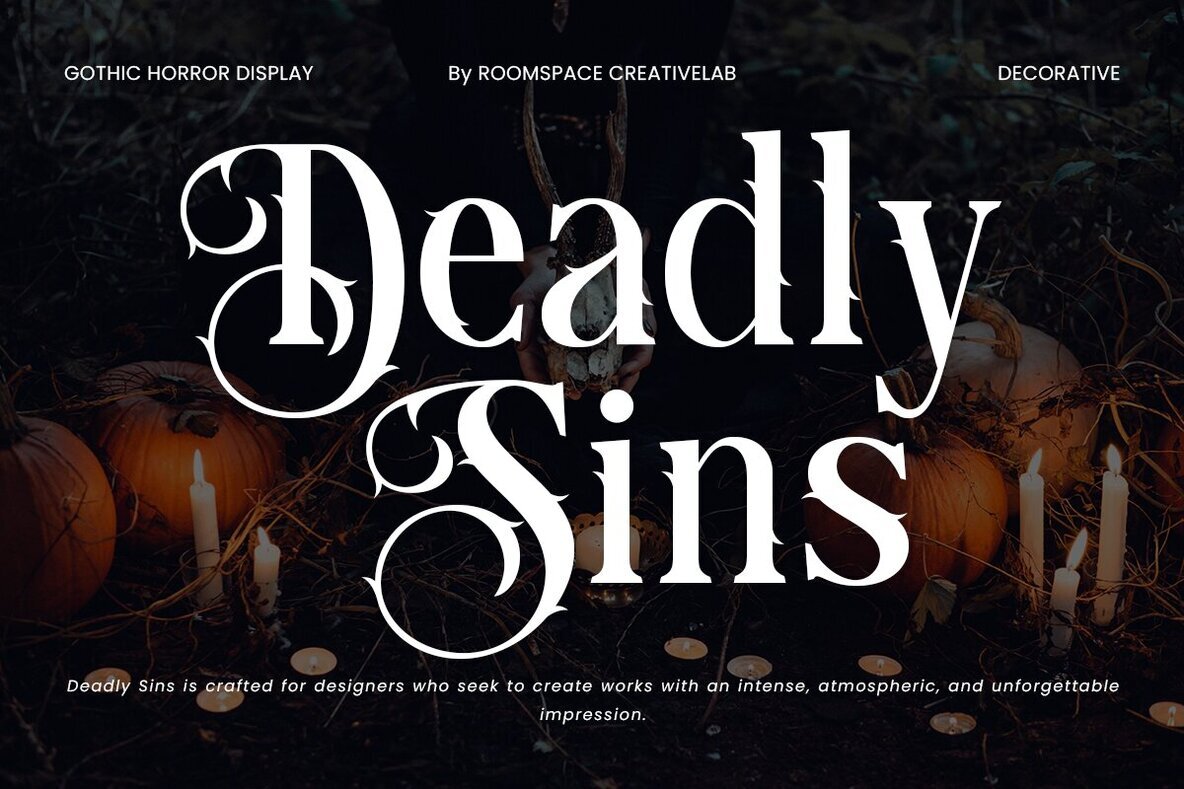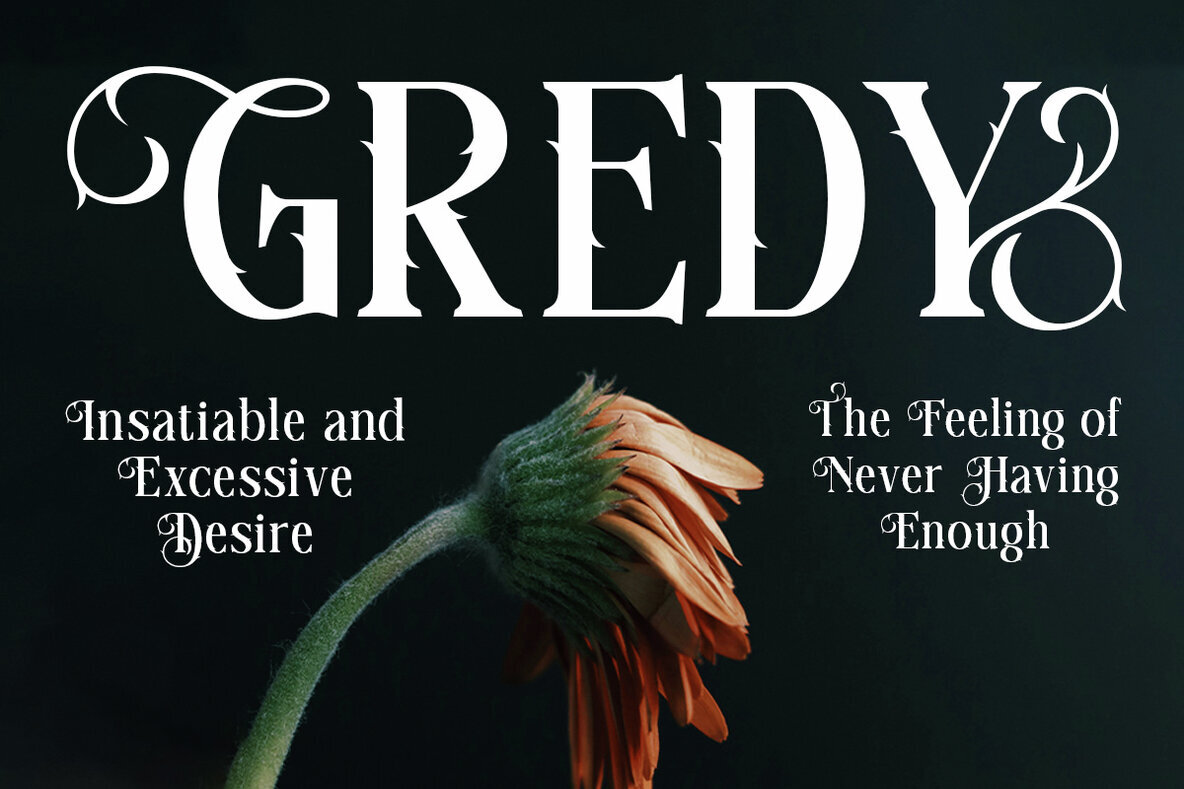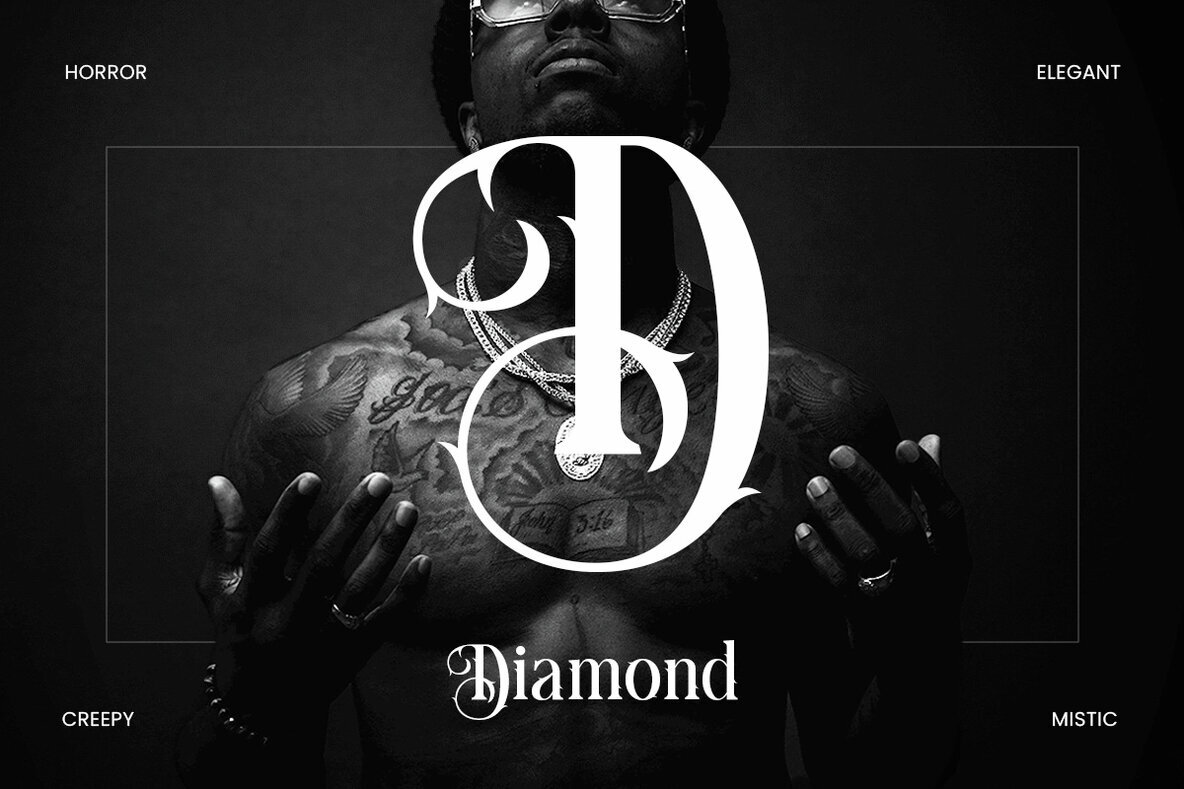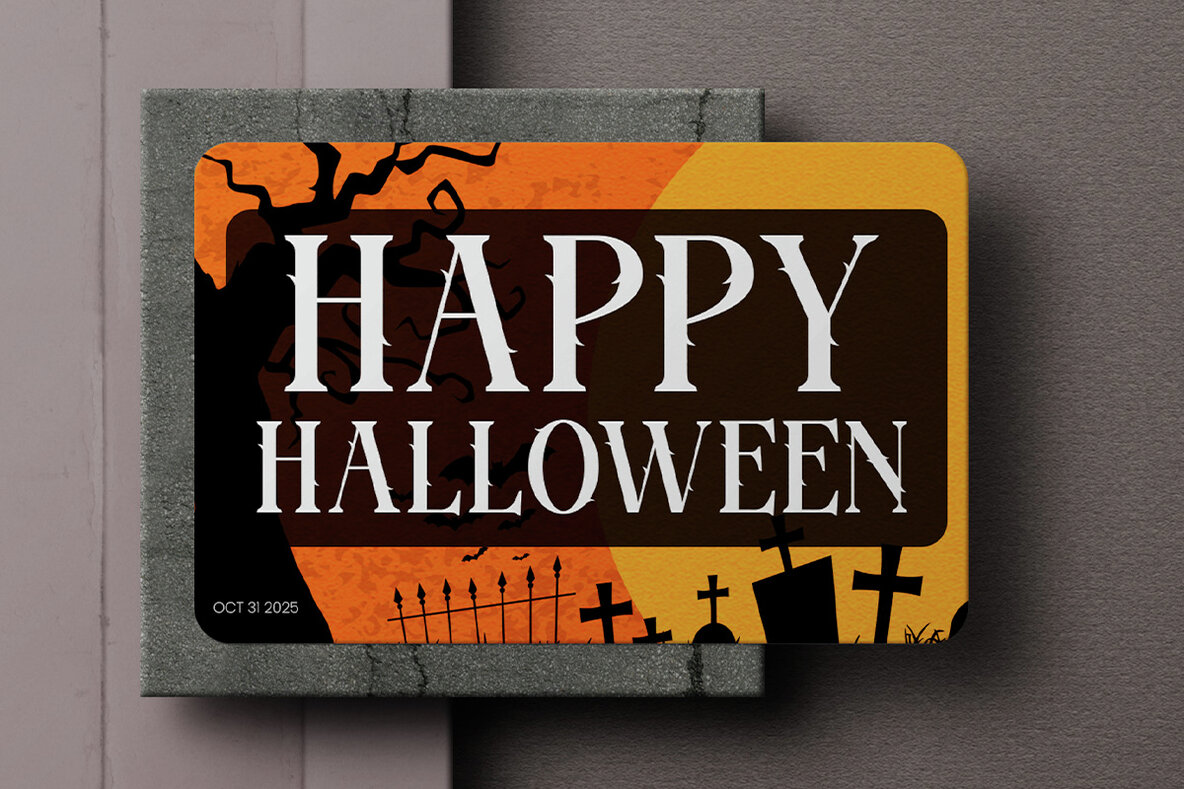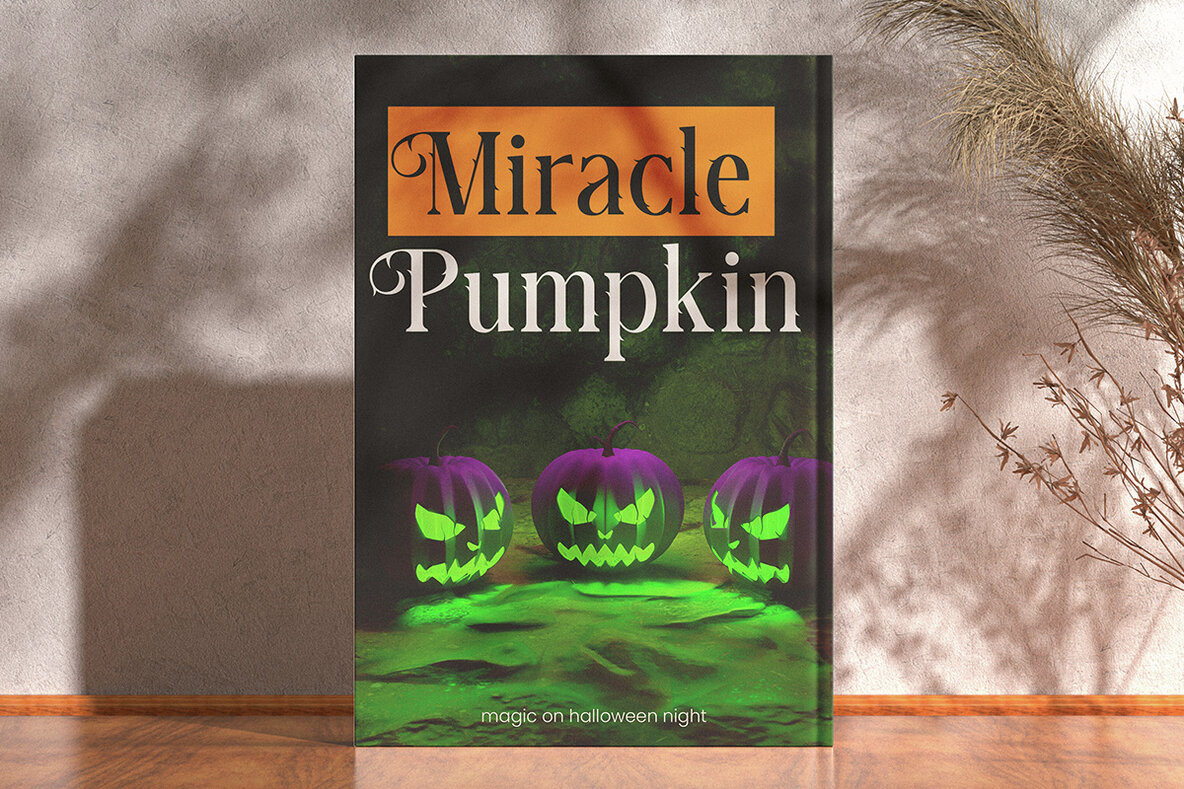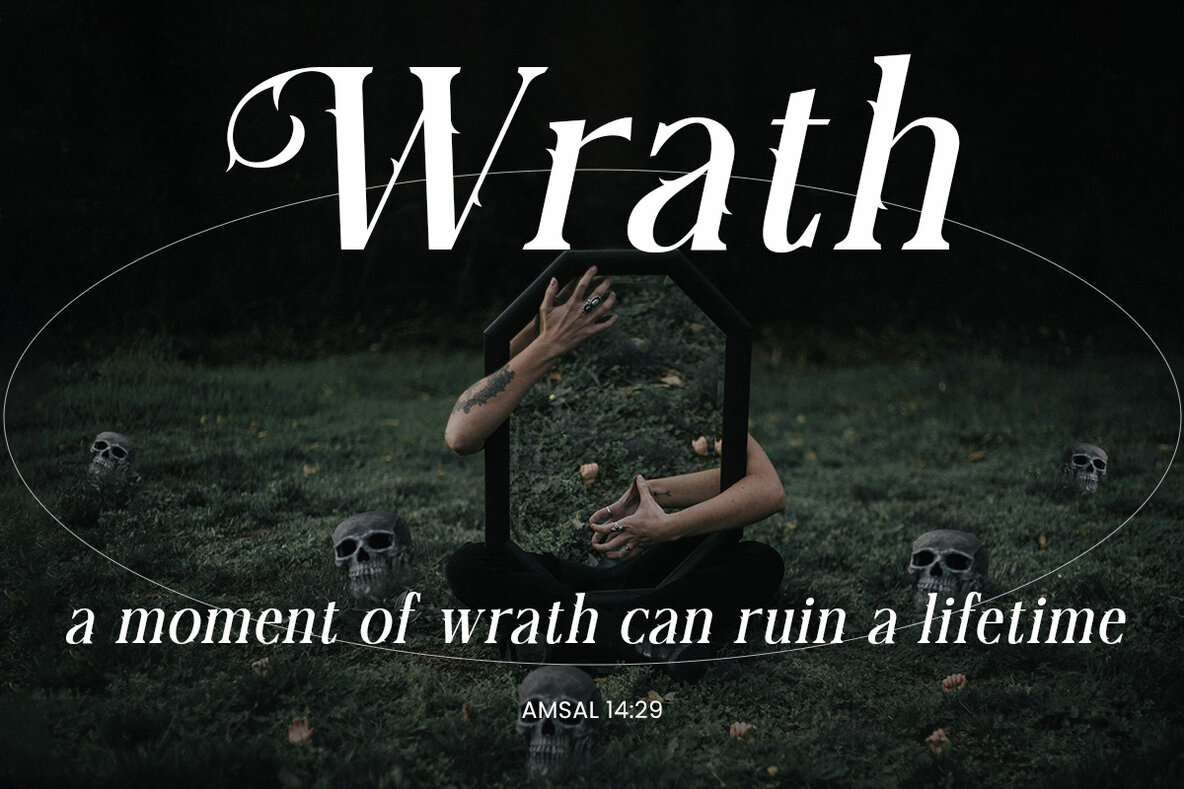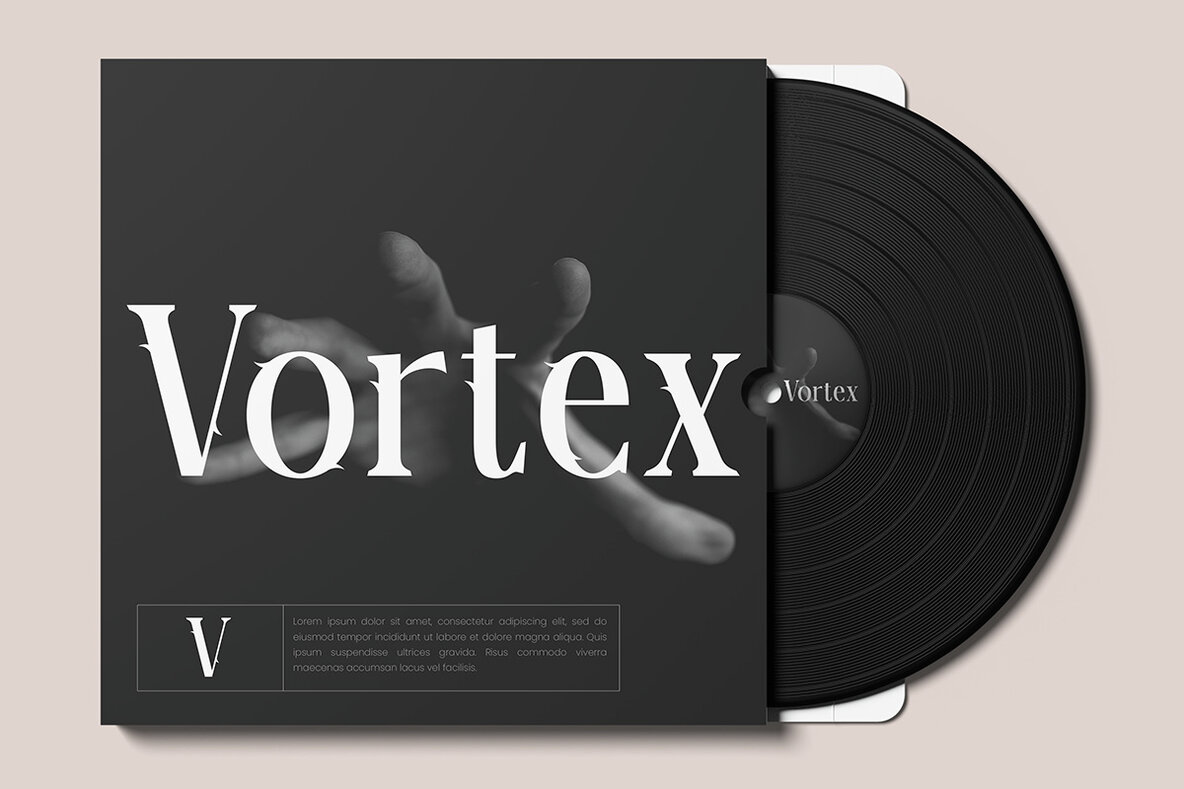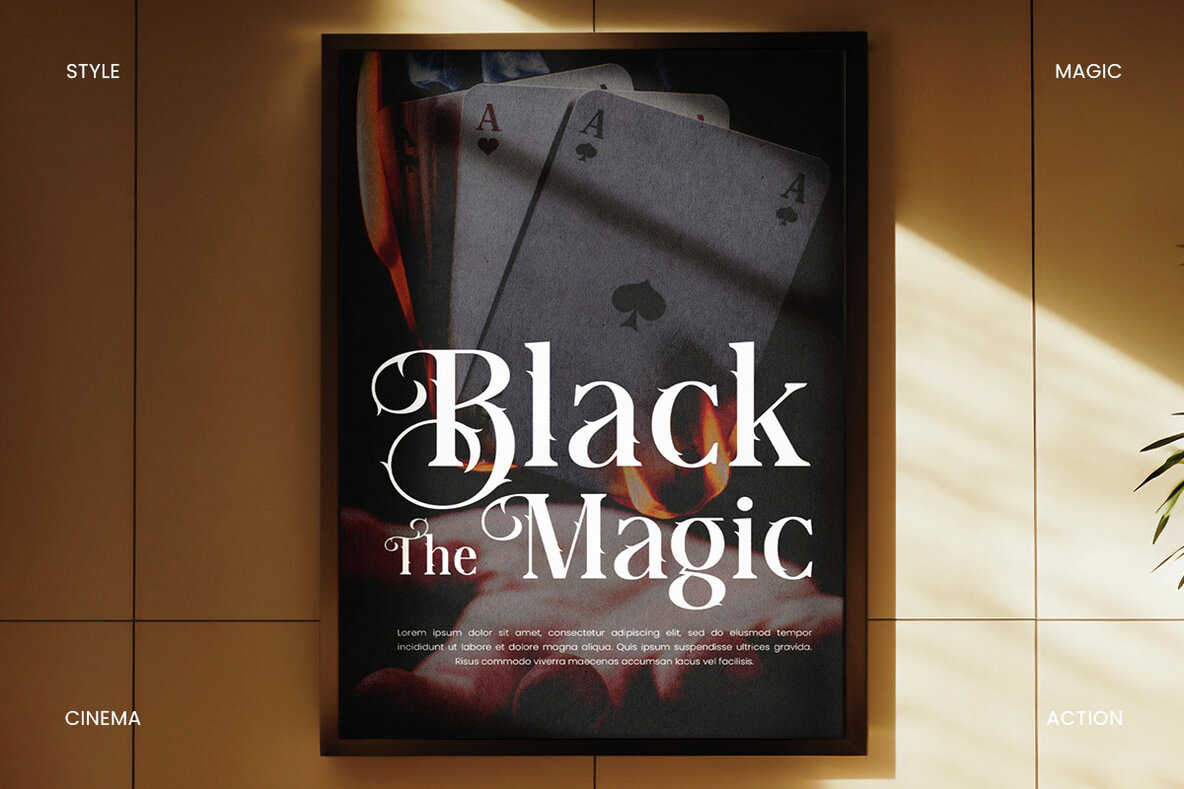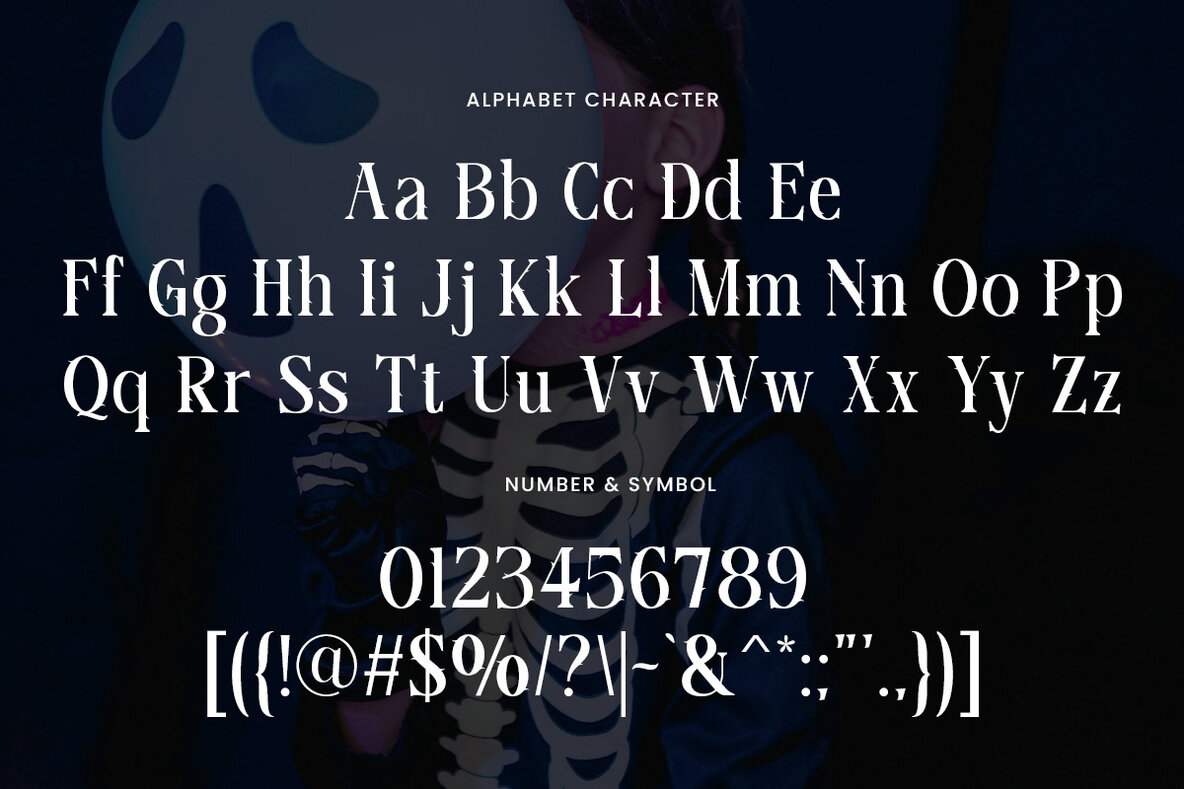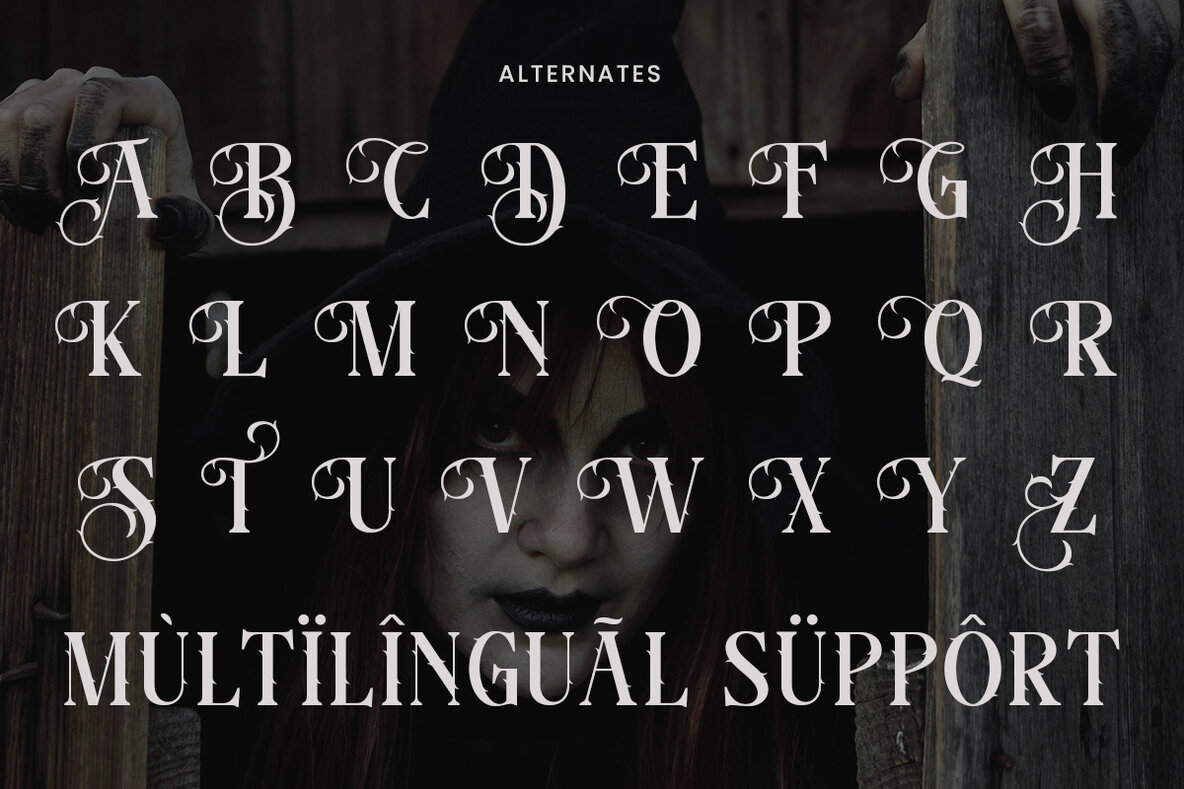
Deadly Sins Font
Deadly Sins sets a dark and mysterious tone for your creative projects with bold, striking letterforms and dramatic curves. The design blends vintage gothic elegance with a modern horror edge, capturing atmospheric details for a truly unforgettable effect. Its sharp edges give each character a haunting presence, making this font a standout choice for projects seeking visual intensity. Ideal for posters, Halloween invitations, book covers, branding, and social media graphics, Deadly Sins delivers a cinematic and powerful statement. The font maintains legibility while evoking a strong sense of intrigue and suspense—making it a reliable choice for designers looking to convey a distinctive gothic mood.Deadly Sins Gothic Horror Display Font